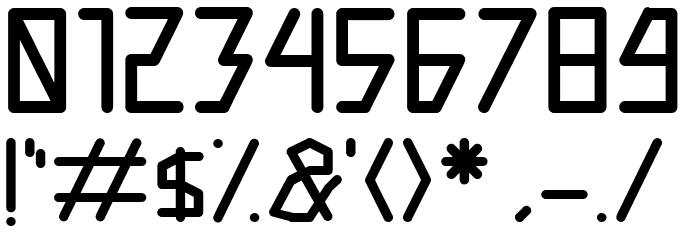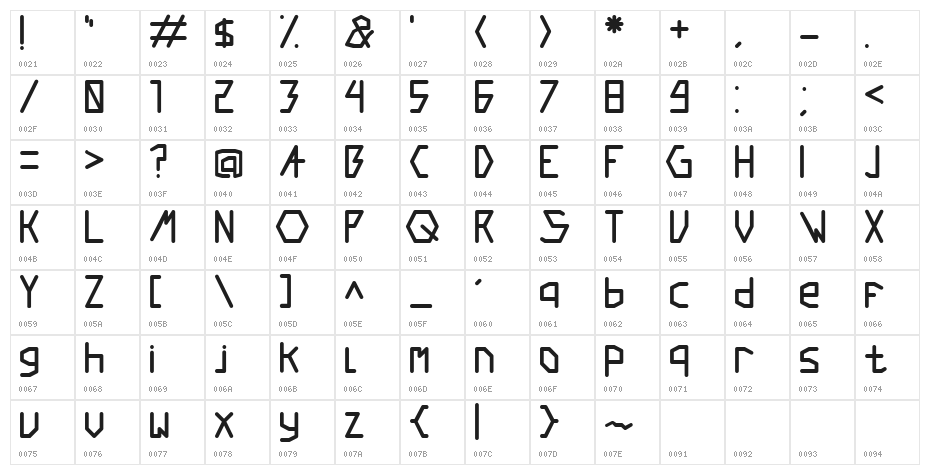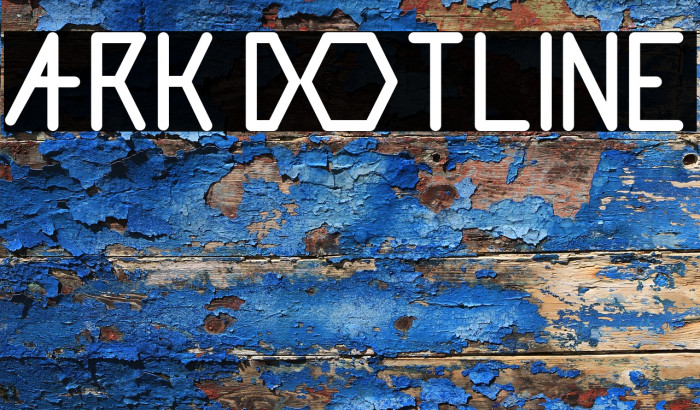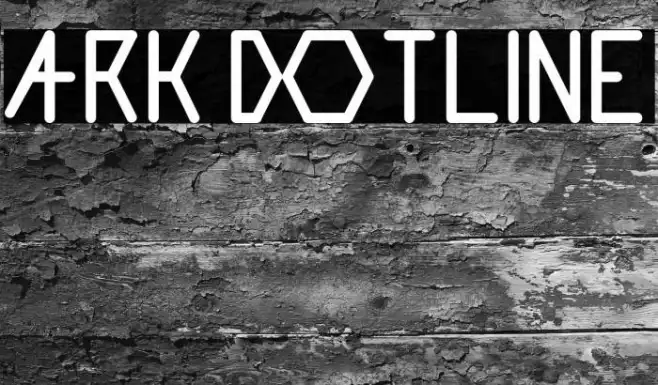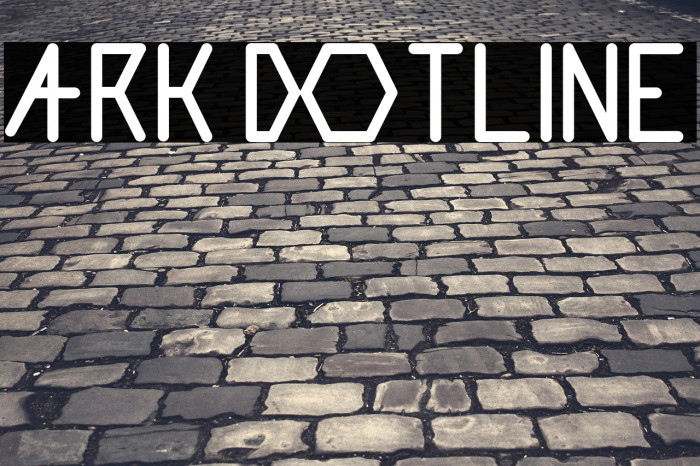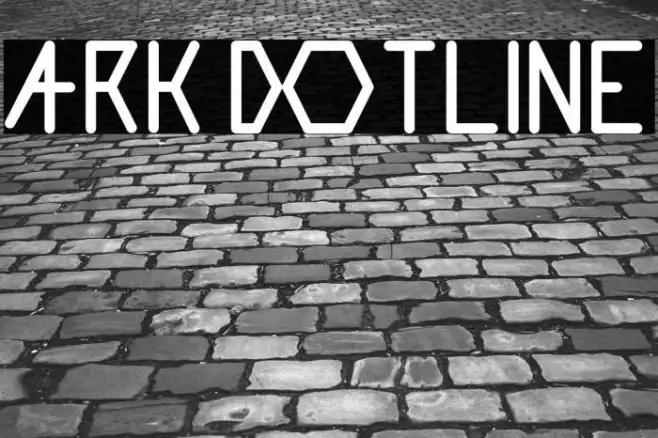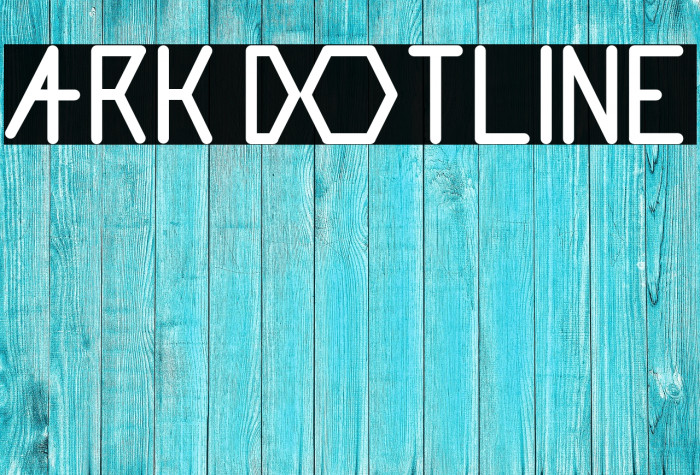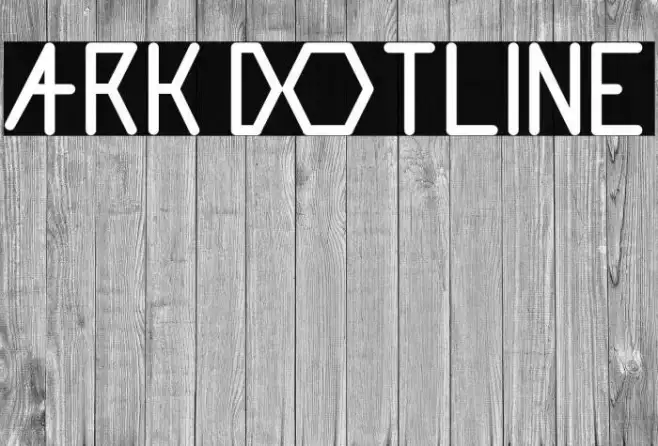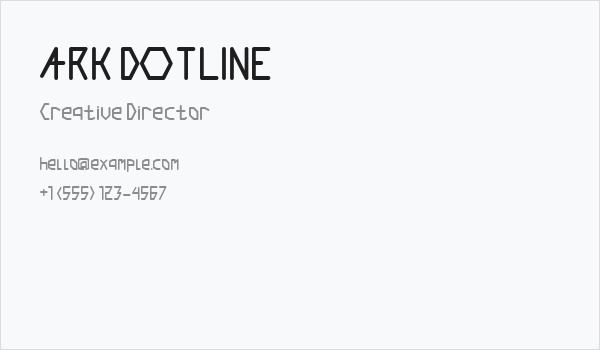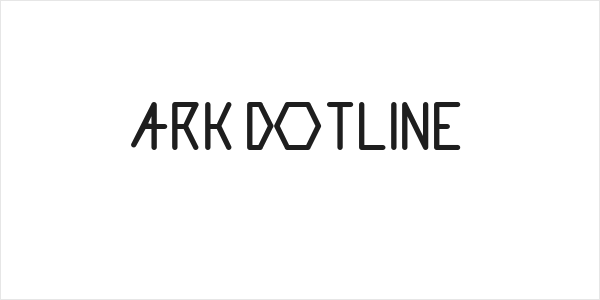
ARK DOTLINE Font
ARK DOTLINE Description
This font features a geometric and modern design, characterized by its angular and linear structure. Each character is composed of straight lines and sharp angles, giving it a futuristic and technical appearance. The uppercase and lowercase letters maintain a consistent style, with a uniform stroke width that adds to its clean and precise look. The numerals and special characters follow the same design principles, ensuring a cohesive visual experience. This font is ideal for projects that require a contemporary and edgy aesthetic, such as technology branding, digital interfaces, or modern art installations.
Overall StyleModern, Geometric
Use CaseHeadlines, Logos, Digital Interfaces
Proposed ProjectsIdeal for technology branding, digital interfaces, modern art installations, and futuristic designs.